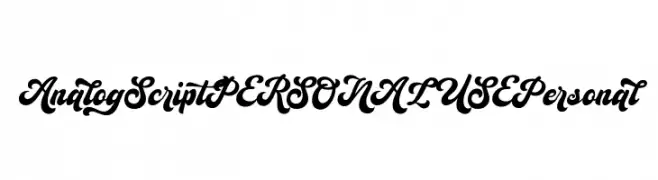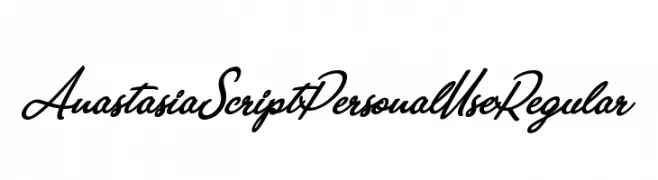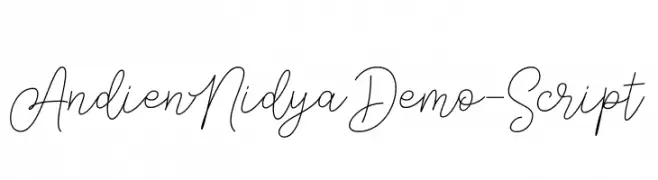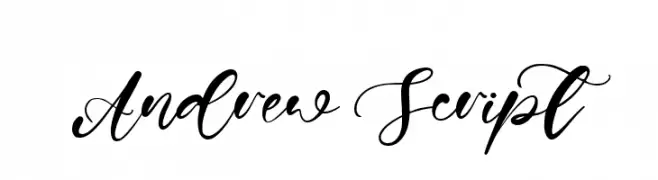
• Analog Script PERSONAL USE Personal
A bold, flowing script font with ornate uppercase and seamless lowercase characters.
• Anastasia script [demo]
An elegant script font with flowing, cursive letters and intricate swashes.
• Anastasia Script Personal Use Regular
A graceful and elegant script font with flowing, interconnected letters.
• Andara Script Demo
A flowing, elegant script font with interconnected letters and a modern twist.
• Andara Script Demo
A flowing script font with elegant loops and a sophisticated style.
• AndienNidyaDemo-Script
A graceful script font with flowing, interconnected letters and delicate loops.
• Andika
A clean, readable font with consistent stroke thickness and balanced spacing.
• Andika Regular
A clean, modern sans-serif font with excellent readability and uniform stroke width.
• Andrew Script
A graceful, flowing script font with elegant, connected strokes.
• Andriani Script
A graceful and elegant script font with flowing, interconnected letters.